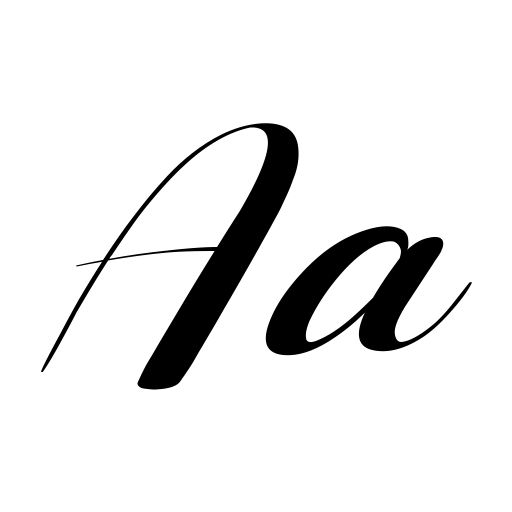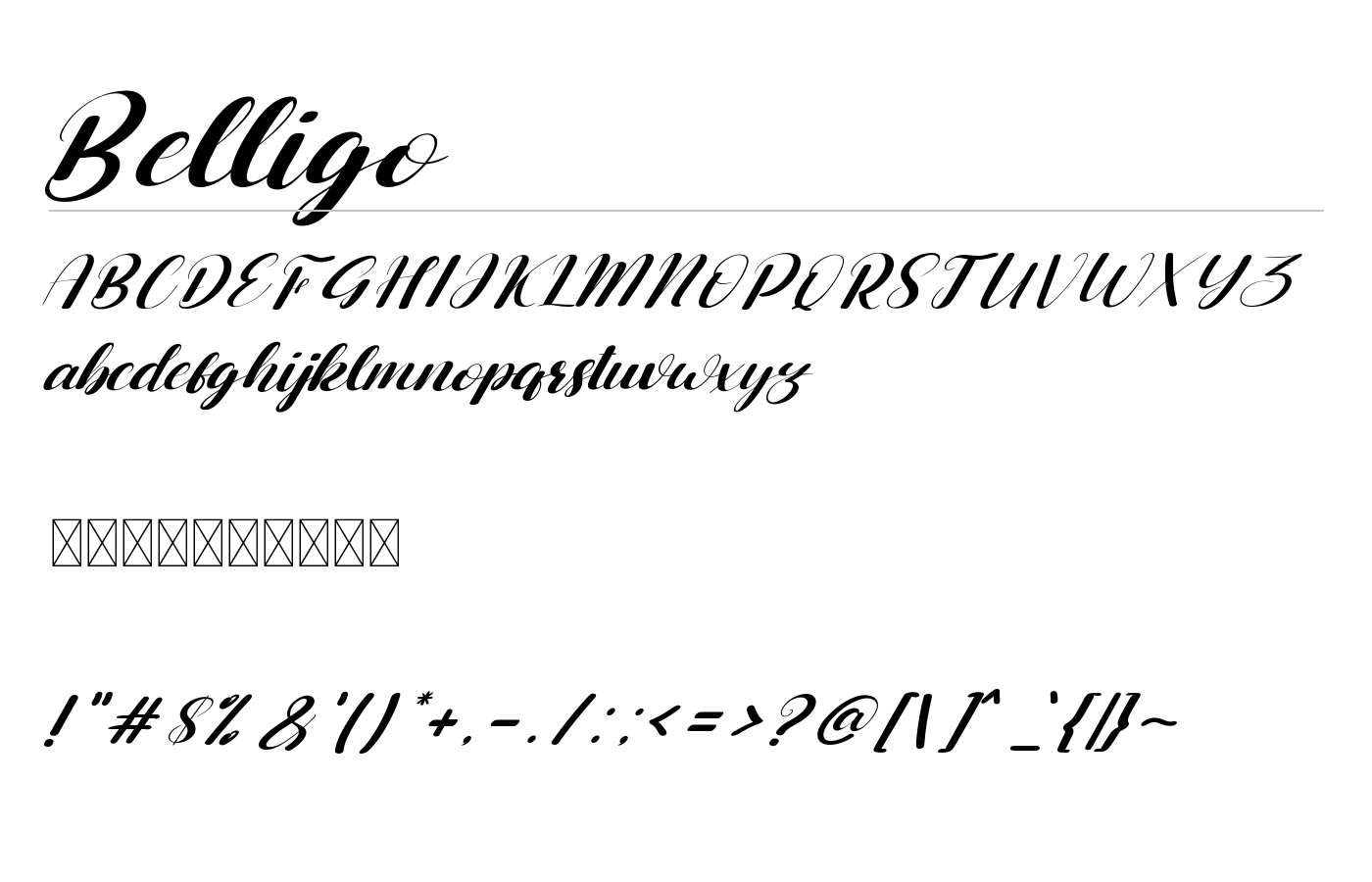
Belligo is an elegant script font featuring flowing, calligraphic letterforms with moderate contrast and a graceful, slightly condensed structure. Its smooth curves and stylish swashes make it ideal for luxury branding, invitations, and sophisticated headlines that require a refined, personal touch. This font lends a sense of charm and artistry, perfect for fashion, beauty, or creative projects.
Belligo Font
About Belligo Font